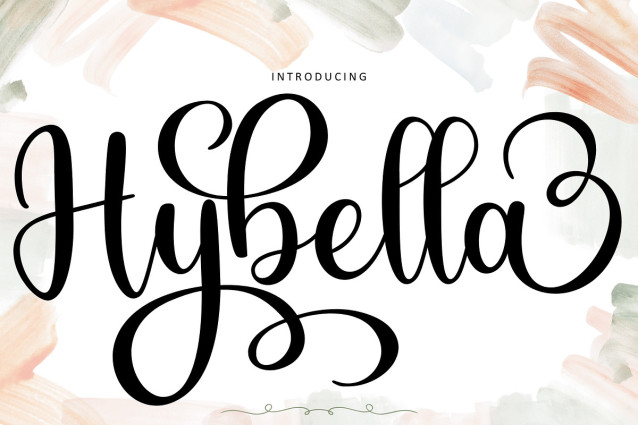
Hybella Script Font
Hybella Script Font is a modern script font with an elegant touch and smooth, flowing strokes. Designed with soft curves and expressive letterforms, it brings a luxurious yet warm and approachable feel to any design.